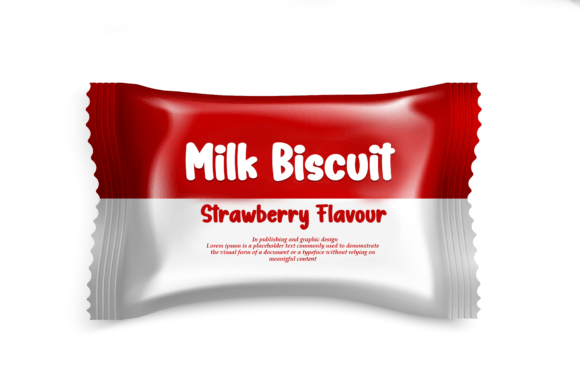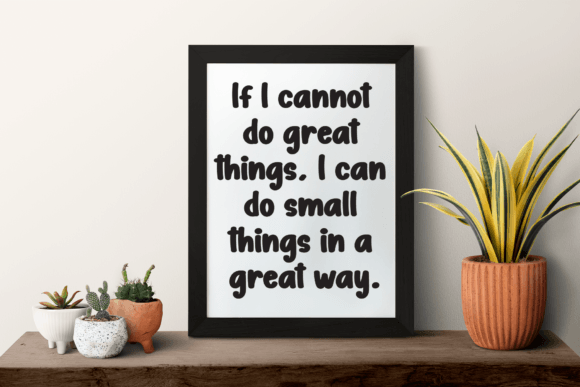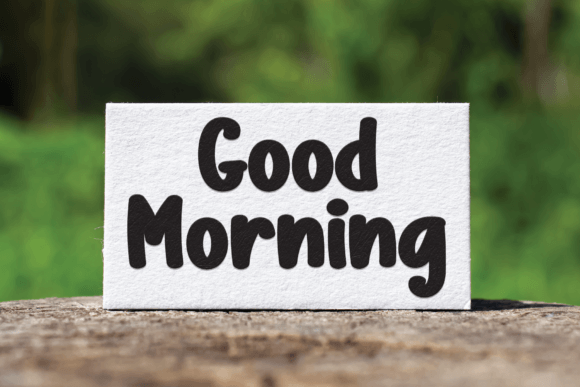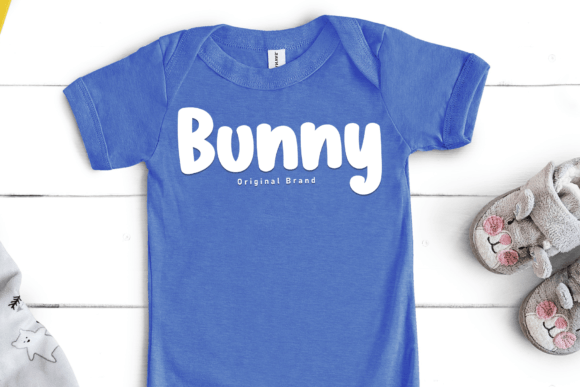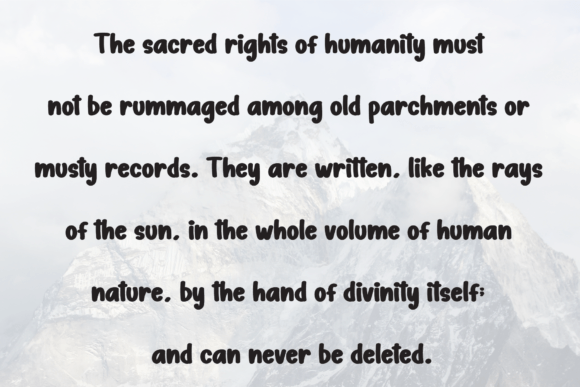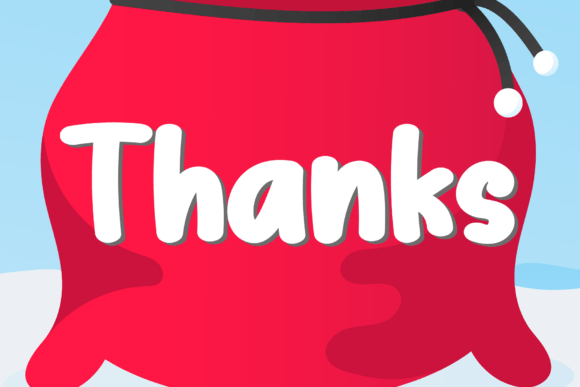
Introduction to Santa Pocket Font
Santa Pocket is a sweet and friendly display font.
Cute and fun, this font is ideal for writing wedding invitations, cards, or any other design that might need a fun touch .